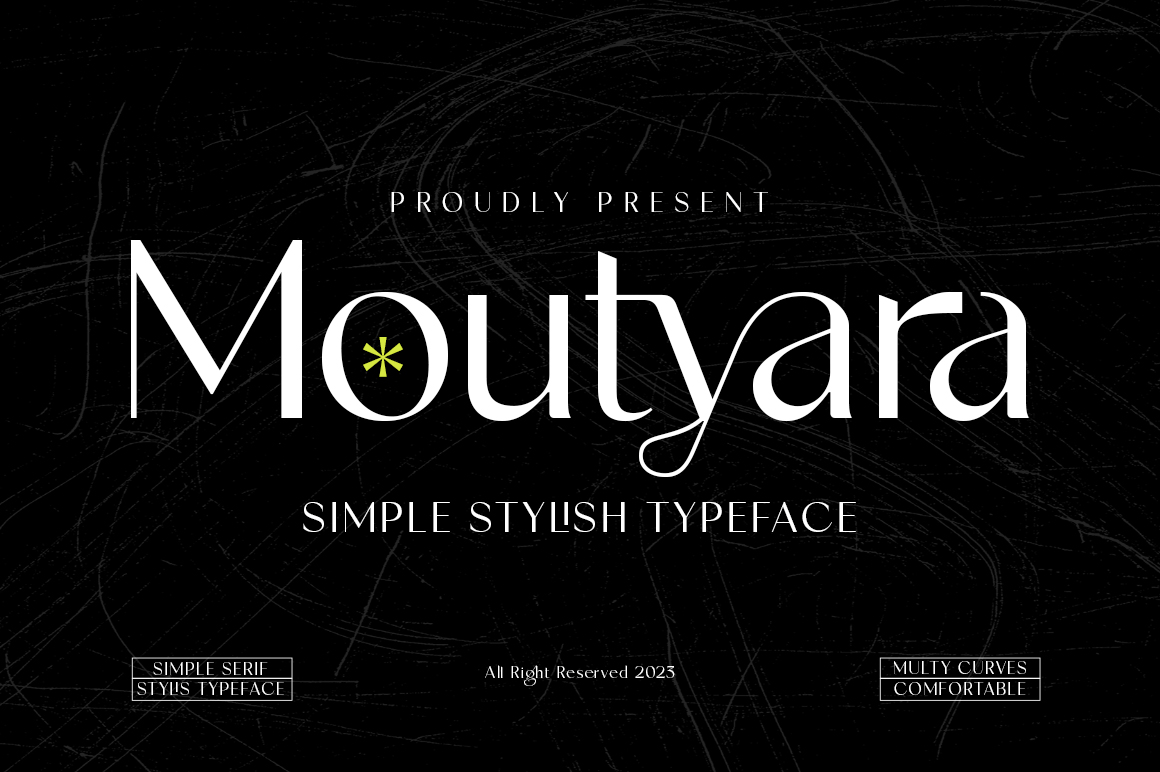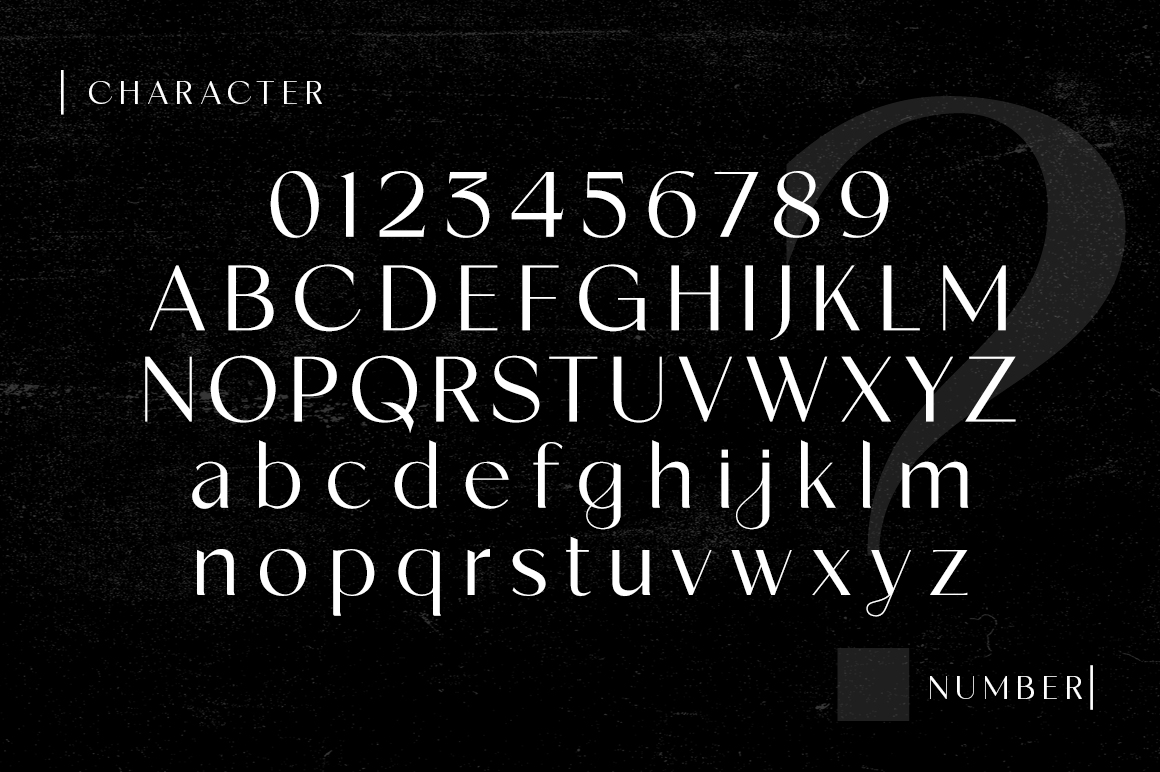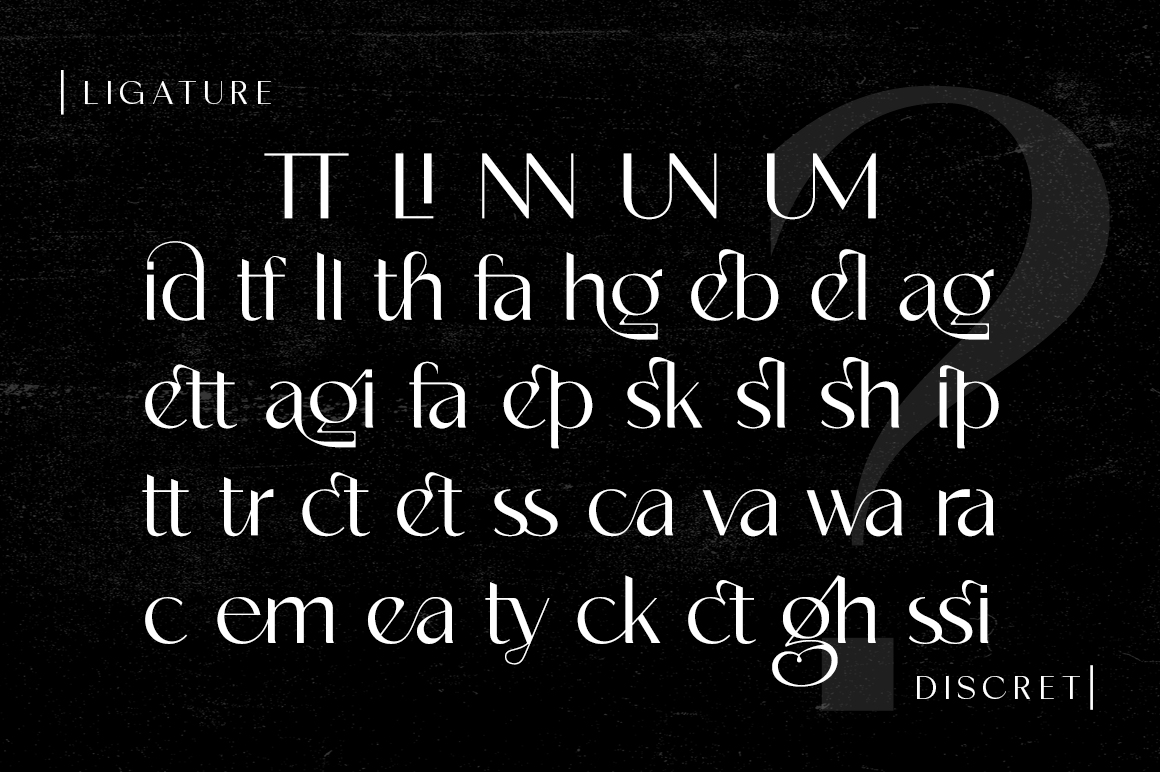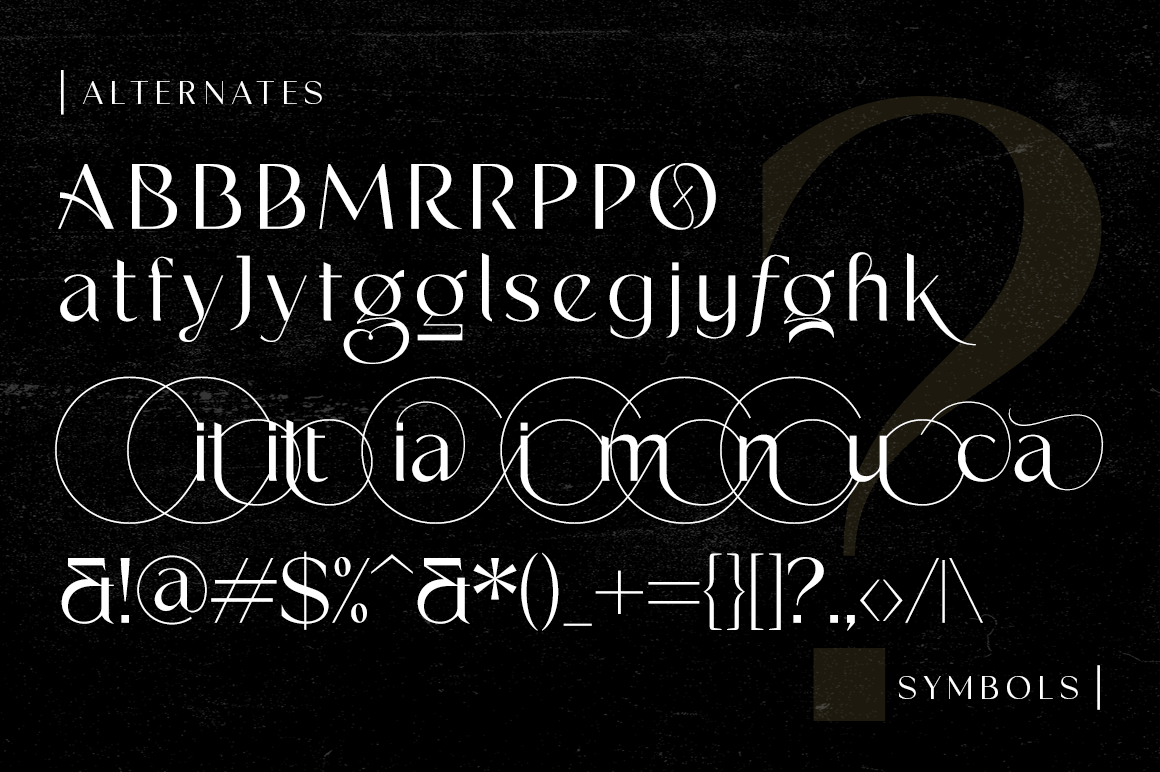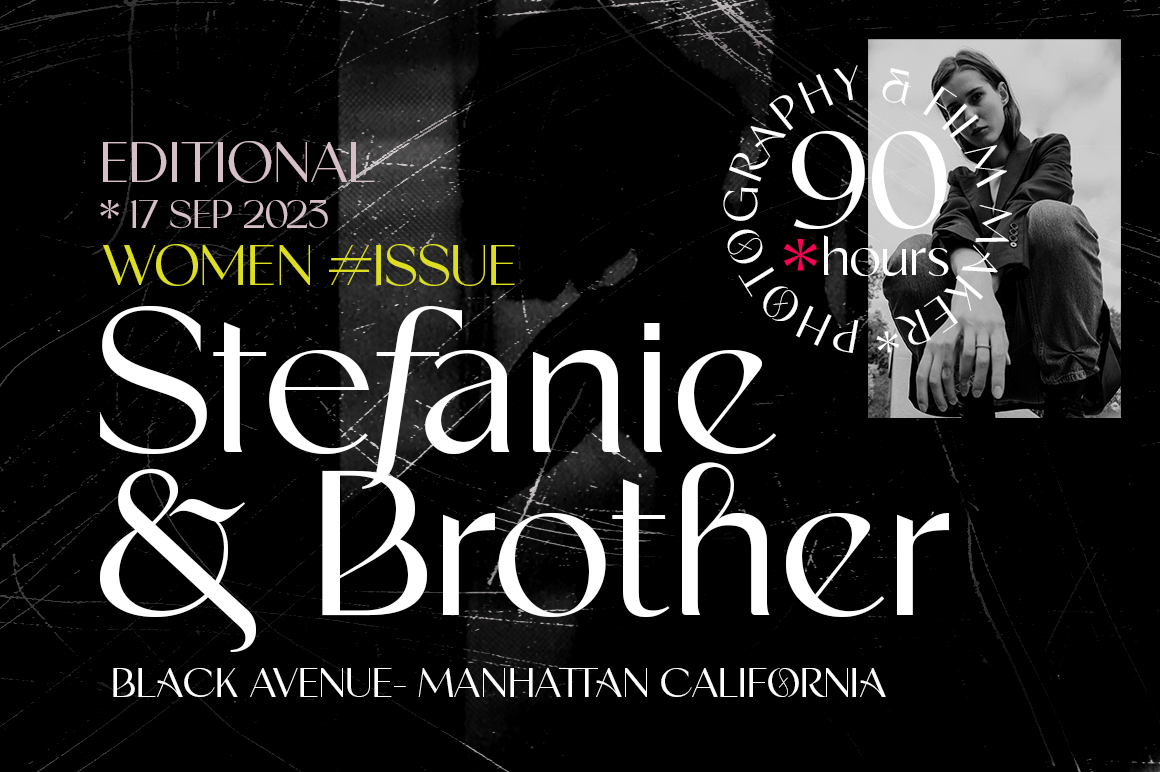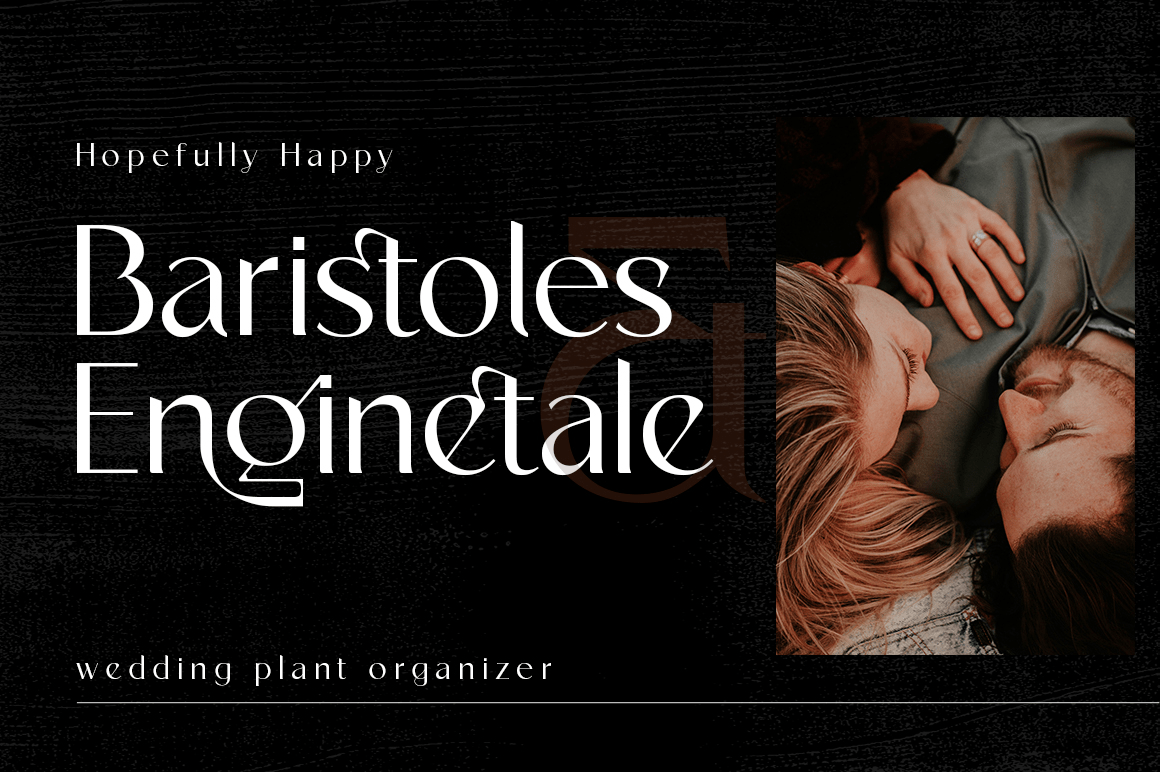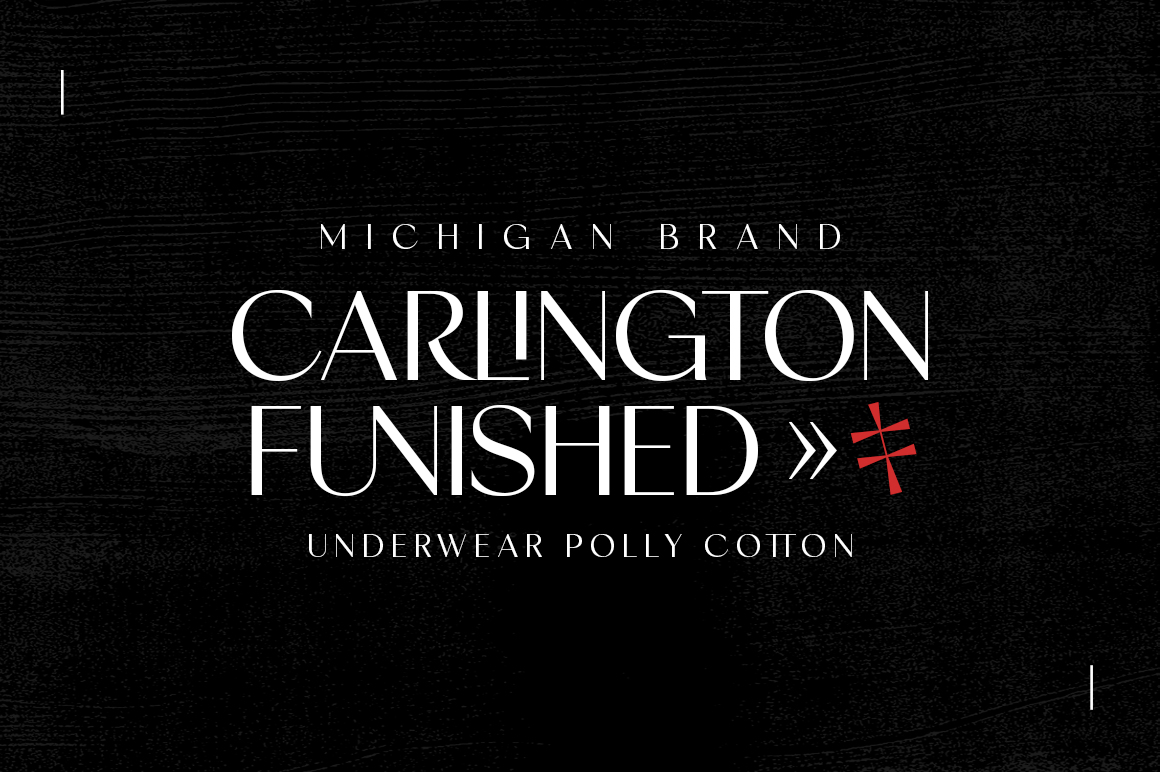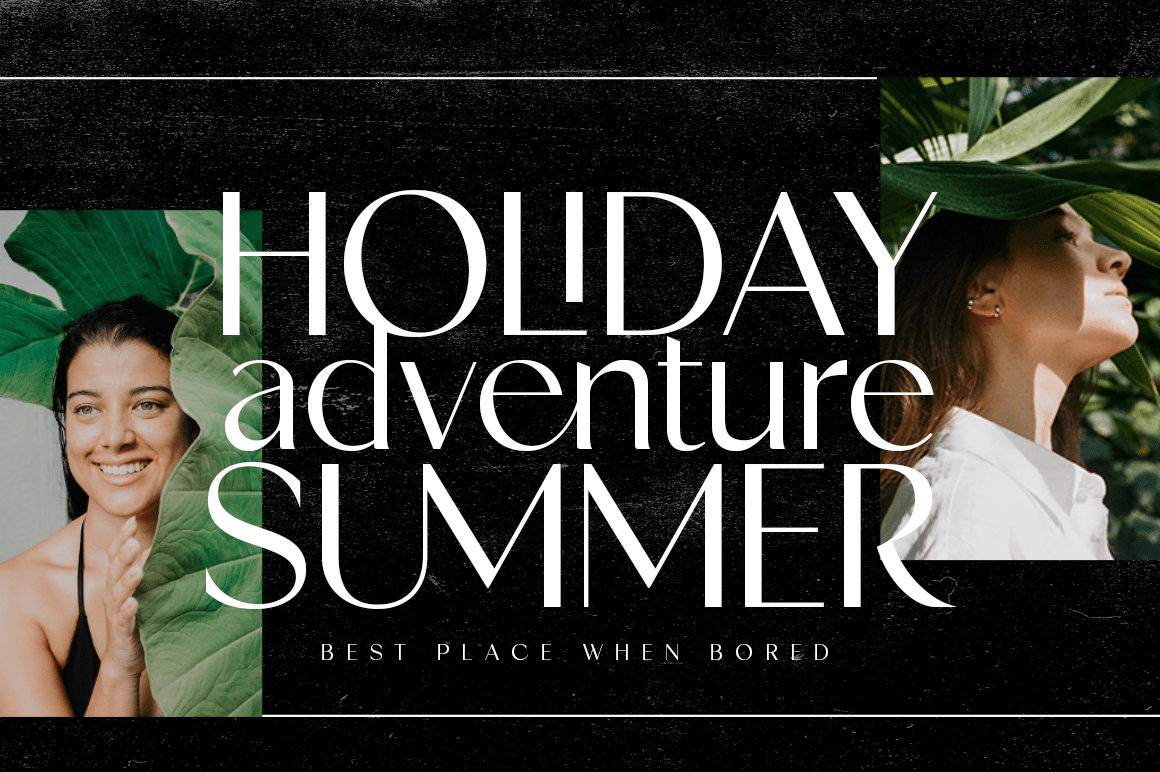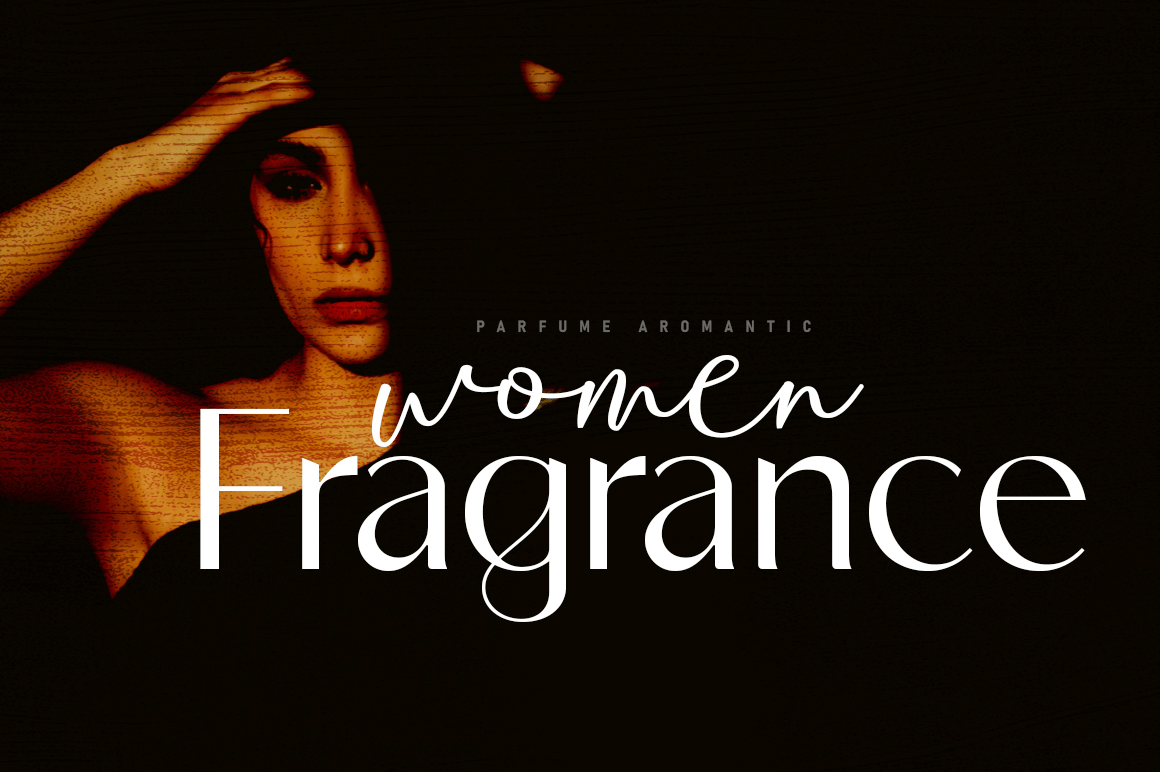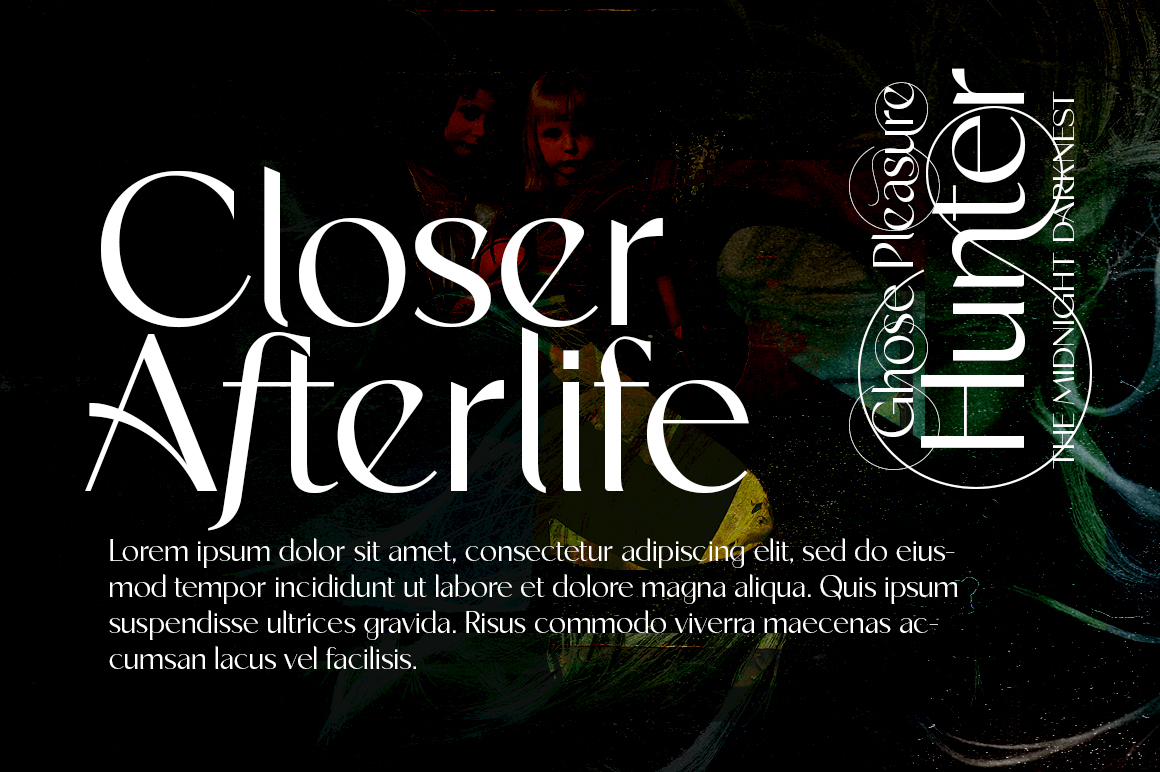
Moutyara
Font Family by Dora Typefoundry
Features:
- All Caps Font with different uppercase and lowercase
- Number & Symbol
- Supported Languages
- Alternates and Ligatures